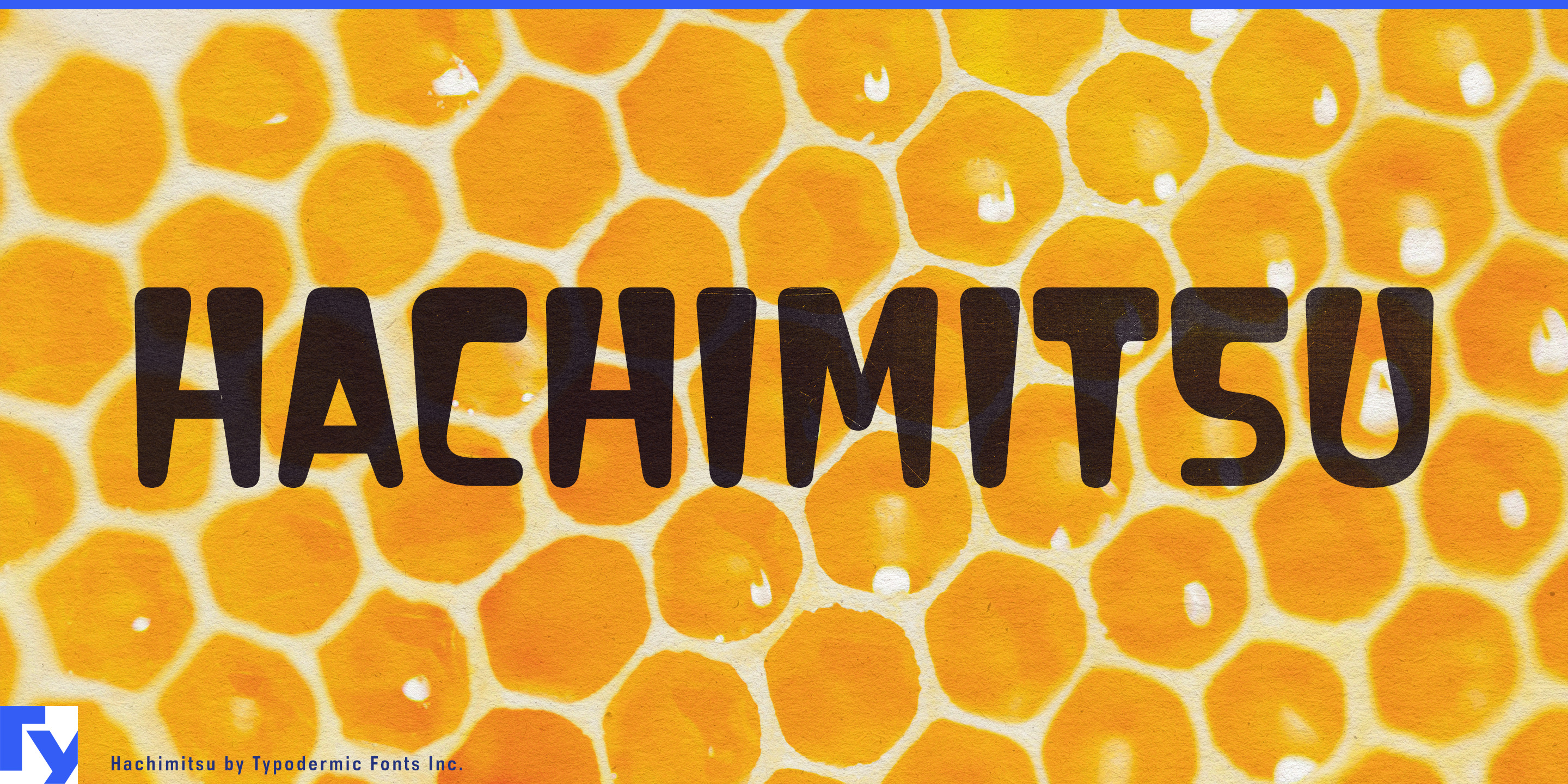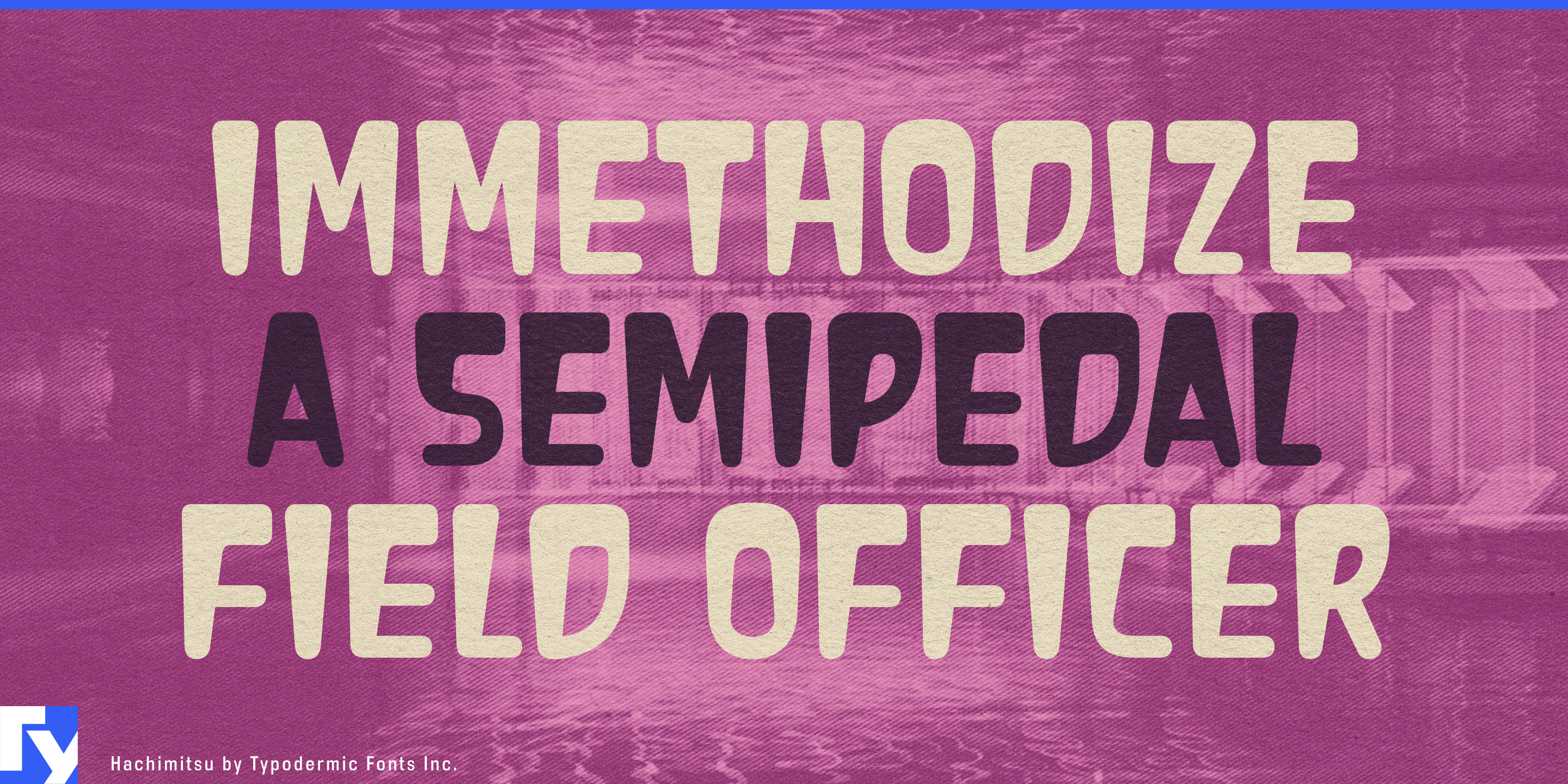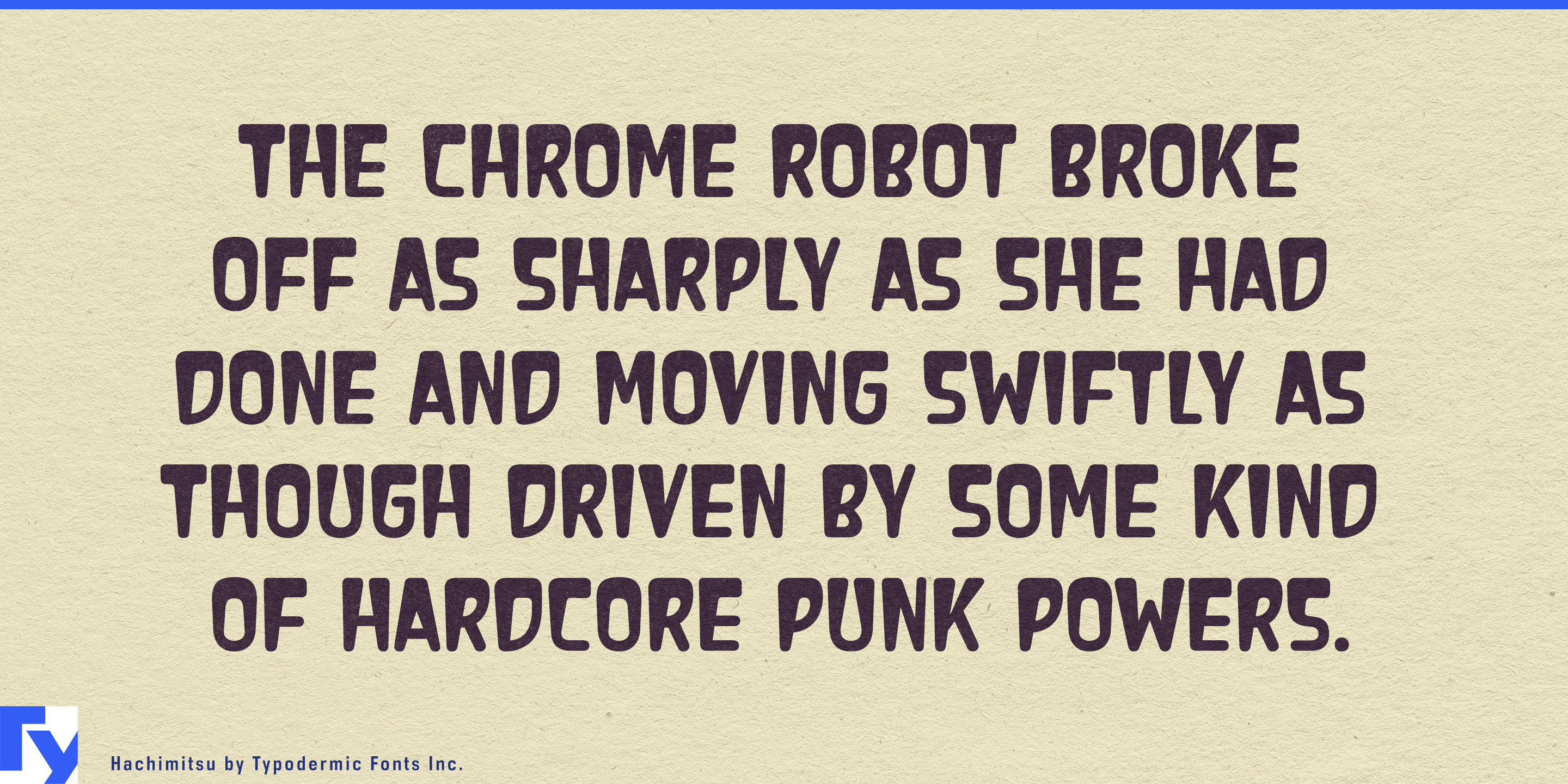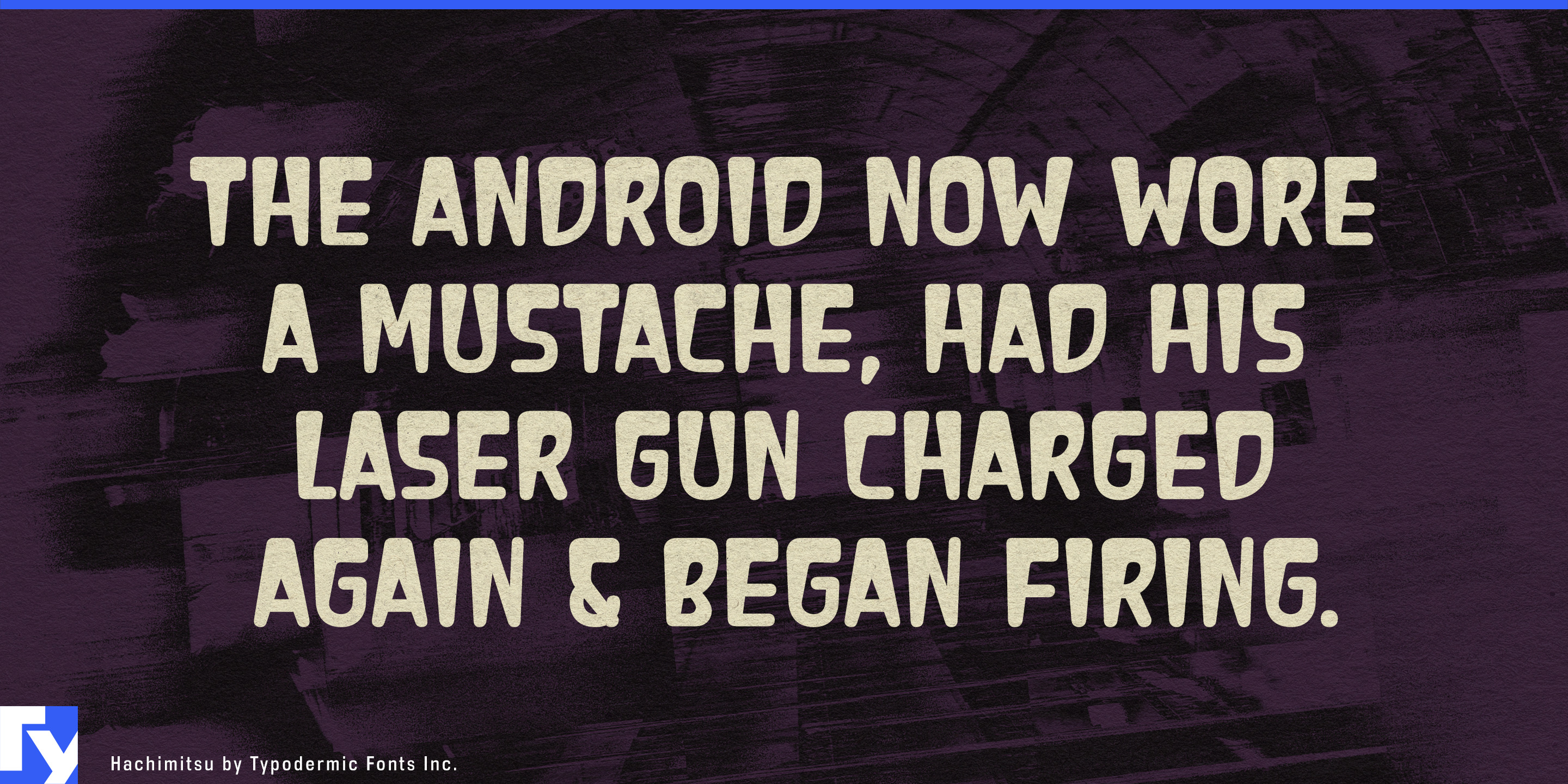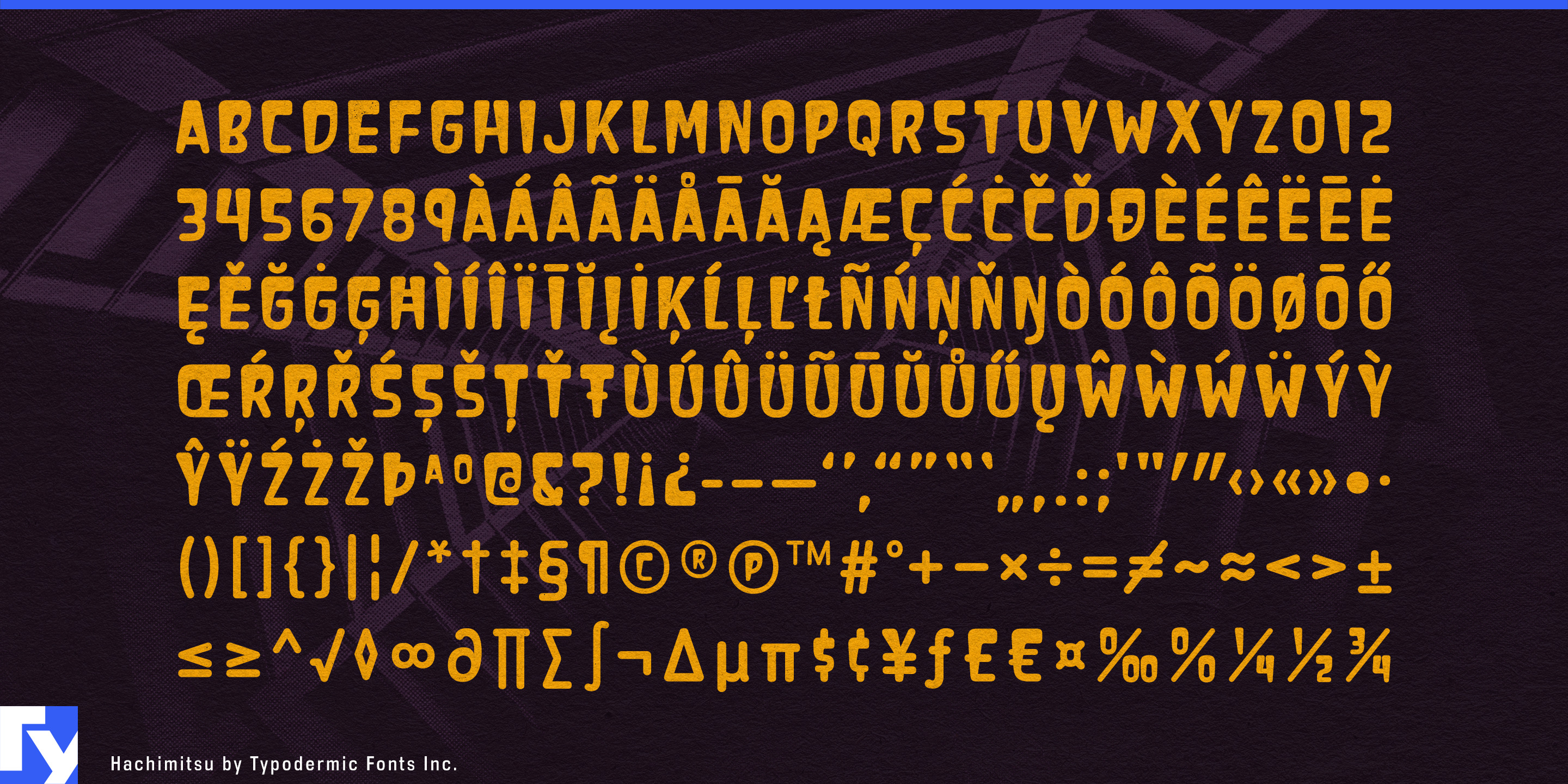
Hachimitsu
Retro Japanese display lettering can easily collapse into familiar signals: brush forms, restrained nostalgia, manga exaggeration, or atomic-age kitsch. Hachimitsu takes a stranger route. Its letterforms are broad and heavy across the shoulders, then narrow noticeably toward the baseline, creating a top-heavy balance that makes words seem larger than the space they occupy. The effect is cheerful, commercial, and slightly improbable; the letters look as though they are looming over whatever sits beneath them.
That unusual distribution of weight grew from an observation of Japanese sign lettering rather than an attempt to reproduce a particular historical alphabet. Rounded forms keep Hachimitsu approachable, while the narrow footing prevents all that mass from settling into ordinary bubble lettering. The result has an affinity with Showa-era commercial graphics, kaiju advertising, and mid-century Japanese science fiction without depending on brushwork, distressed printing, or American creature-feature conventions.
Monster toys and collectibles are an especially natural fit. Sofubi packaging, model-kit boxes, designer toys, robot figures, garage kits, creature cards, collector events, and fictional hobby brands all need lettering capable of standing beside busy illustrations and oversized characters. Hachimitsu has enough presence to compete with a giant monster on the same package; its uneven proportions make the type feel like part of the spectacle rather than a neutral label added afterward.
The same qualities suit kaiju and retro-science-fiction entertainment: revival screenings, tokusatsu events, comic covers, tabletop games, fictional television titles, and retro-futurist exhibitions. Bright consumer packaging opens another direction, including candy, novelty snacks, instant noodles, soft drinks, curry mixes, toy premiums, and fictional convenience-store products. Hachimitsu’s broad upper forms hold color well, keeping short product names visible against mascots, illustrations, bursts, patterns, and crowded graphics.
Outside those Japanese references, the looming proportions still have a job to do. Monster burgers, oversized desserts, spicy-food challenges, giant attractions, carnival graphics, creature-themed restaurants, and family entertainment can all exploit typography that seems unusually large for its footing. Hachimitsu is an all-caps display face built for names, packages, posters, ride titles, merchandise, and other moments where a few words need to dominate the surface.